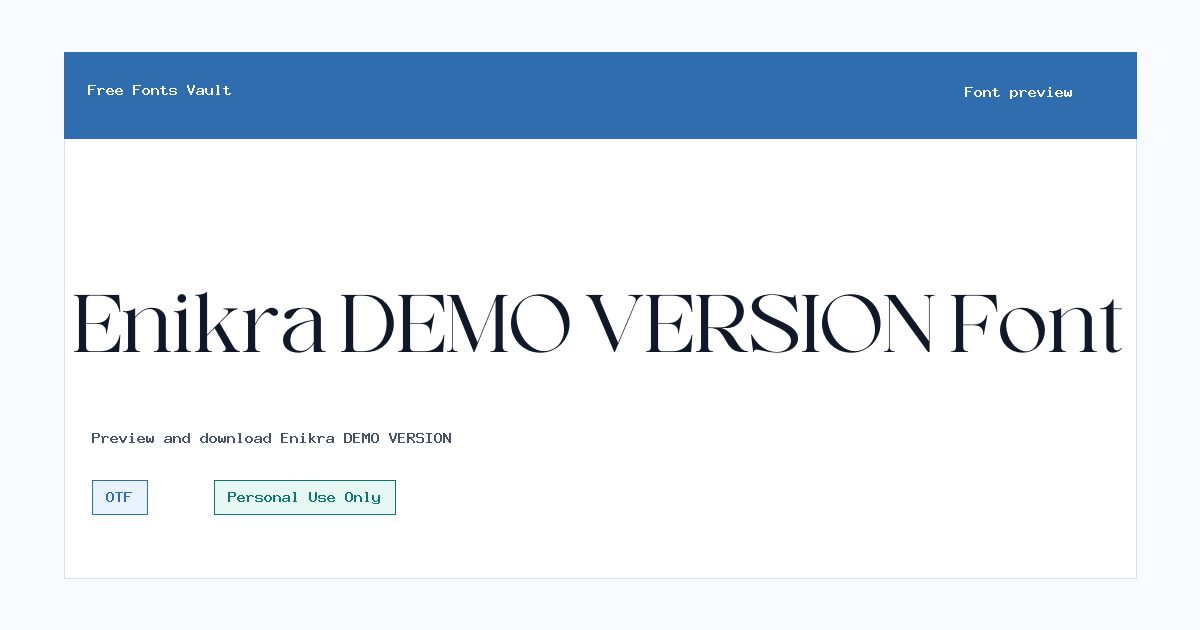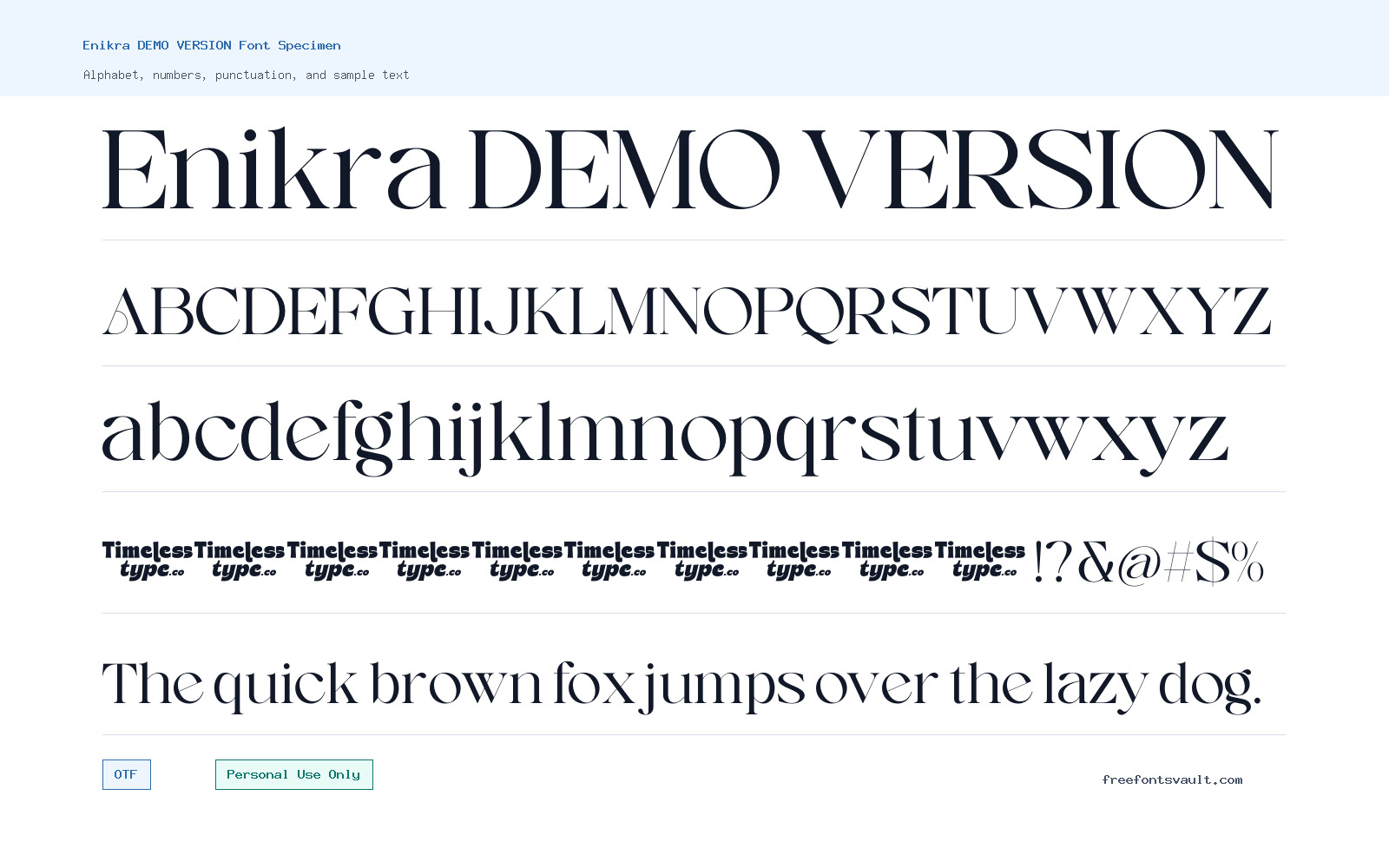
Enikra DEMO VERSION
- Designer Heru Utama Putra
- Foundry TimelessType
Enikra DEMO VERSION font.
Enikra DEMO VERSION is a serif demo font from Heru Utama Putra and TimelessType. It is listed with a Personal Use Only license, so it is best treated as a trial or non-commercial design resource unless you confirm and purchase the proper license from the creator.
About Enikra DEMO VERSION
Enikra DEMO VERSION appears as a serif font, which makes it worth testing for headings, nameplates, editorial-style layouts, and short pieces of display text. Because the file is marked as a demo version, visitors should not assume it contains every character, alternate, language feature, or spacing refinement that may exist in a full commercial release. The safest way to judge it is to type your own project text into the previewer and look closely at the letters you actually need. Test capitals, lowercase words, punctuation, numbers, and any accented characters before you build a layout around it.
Use Enikra DEMO VERSION when you want to explore a serif voice for personal artwork, concept mockups, mood boards, social graphics, student projects, or draft branding ideas. Serif fonts can bring structure and a more editorial feel, but they still need testing at the exact size where they will be used. Try it in a large headline first, then check shorter subheads and small labels. If the strokes, spacing, or details become hard to read at smaller sizes, pair it with a simpler sans serif or a quiet text serif for body copy. The included font file is in OTF format, which is widely supported by common design apps and many desktop systems.
- Serif demo font suitable for previewing display text, headings, and personal design drafts.
- Personal-use poster concepts, mood boards, invitations, title graphics, and social media drafts.
- Testing serif headline treatments before deciding whether to seek a full or commercial license.
Who designed Enikra DEMO VERSION?
The font is credited to Heru Utama Putra, with TimelessType listed as the foundry.
What is Enikra DEMO VERSION best used for?
It is best used for personal design exploration, especially short text such as titles, posters, invitations, mood boards, and draft visual concepts. Because it is a demo version, test the exact characters you need.